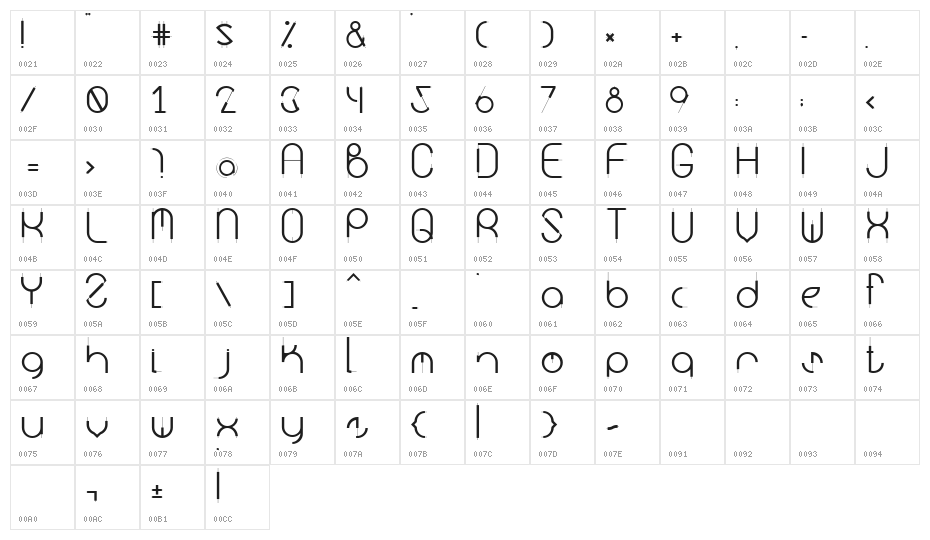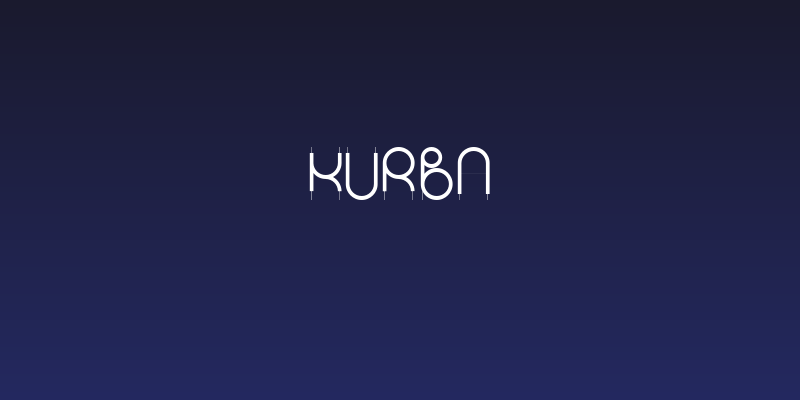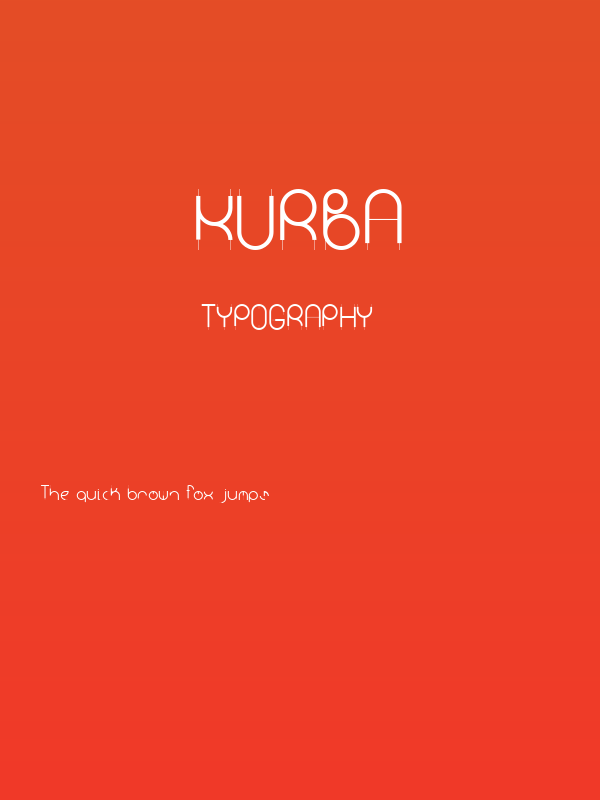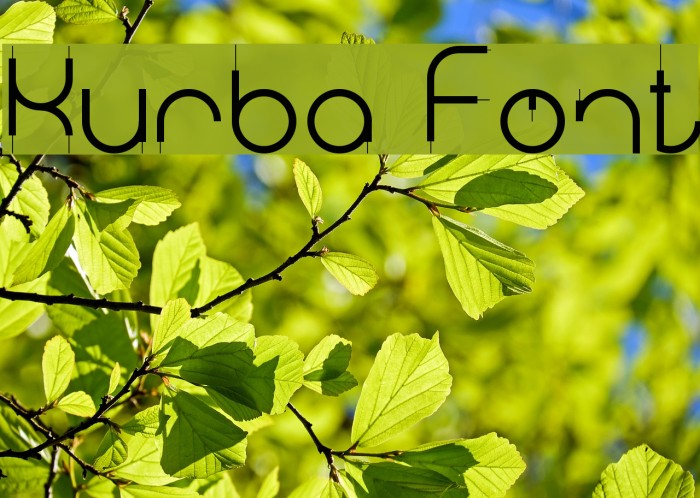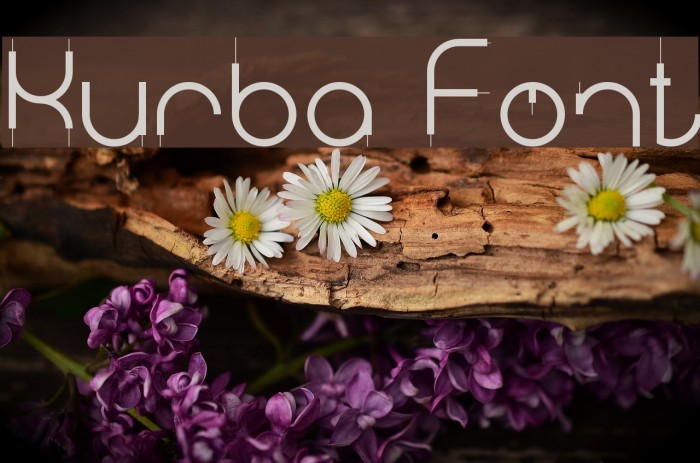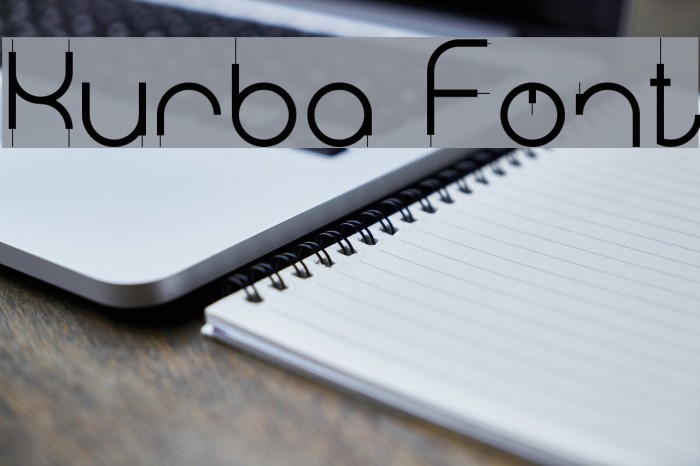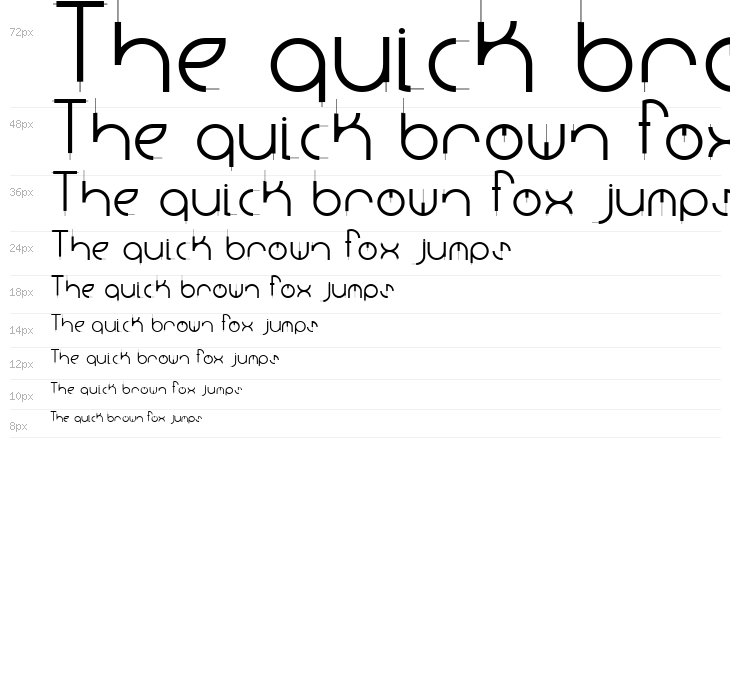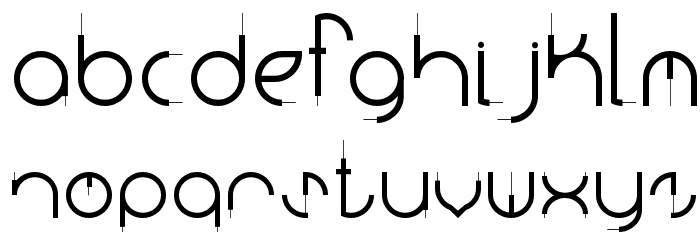
Kurba Font
Kurba Description
This font features a unique and modern design with a futuristic flair. The characters are constructed with a geometric precision, incorporating both sharp angles and smooth curves. The uppercase letters exhibit a distinct style with elongated vertical strokes and minimalistic serifs, while the lowercase letters maintain a consistent flow with rounded edges. The numerals are bold and easily distinguishable, adding to the font's versatility. Special characters are creatively designed, enhancing the overall aesthetic. The font's clean lines and balanced proportions make it suitable for a variety of design applications.
| Overall Style | Futuristic, Geometric |
| Proposed Projects | Ideal for tech branding, futuristic posters, digital interfaces, and innovative product packaging. |